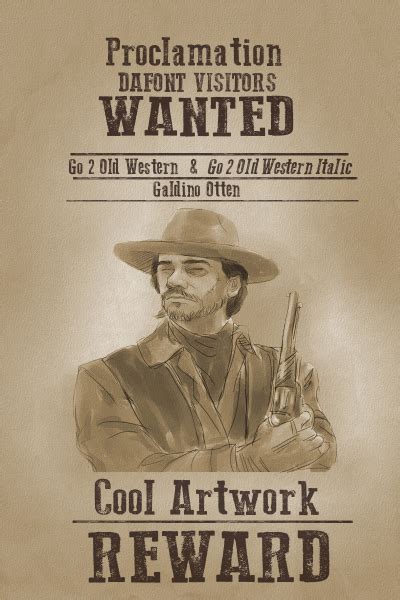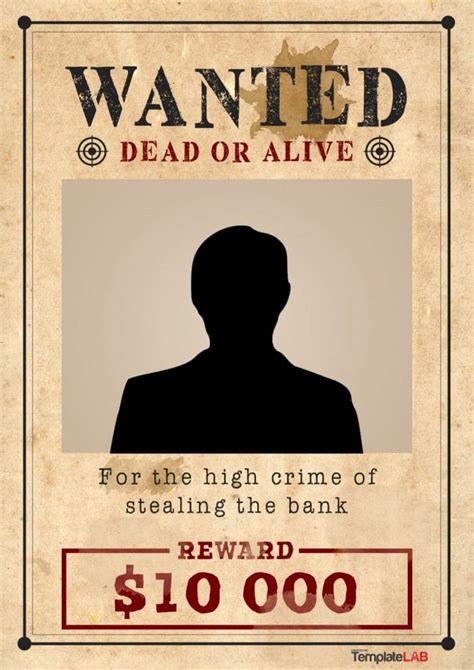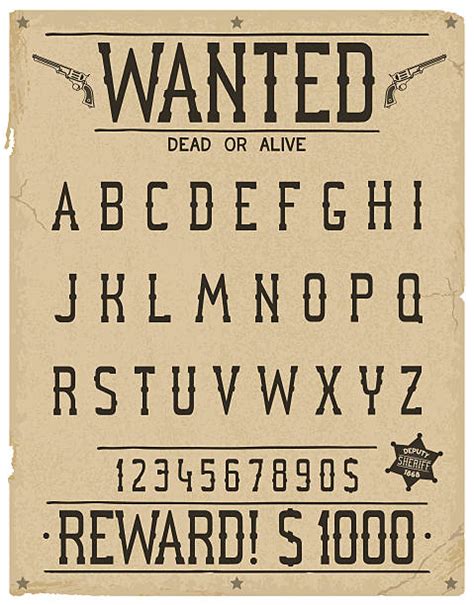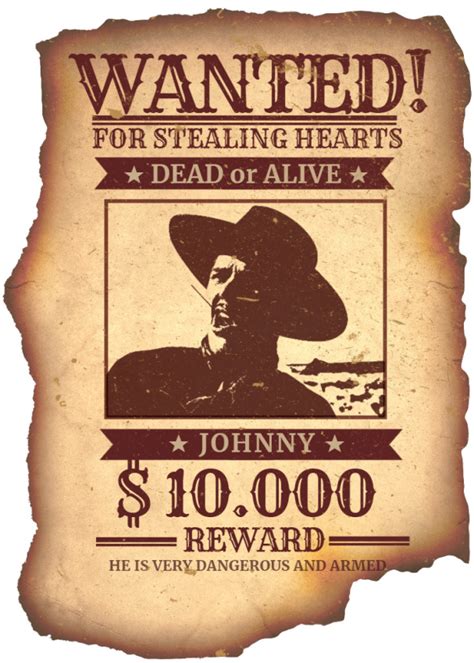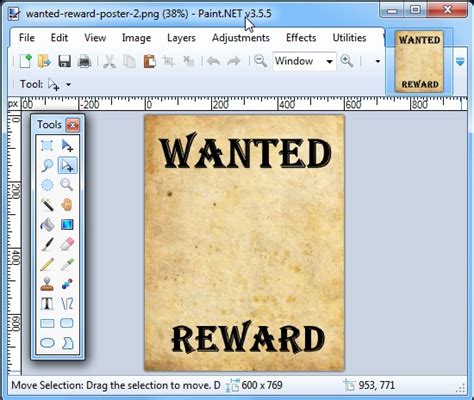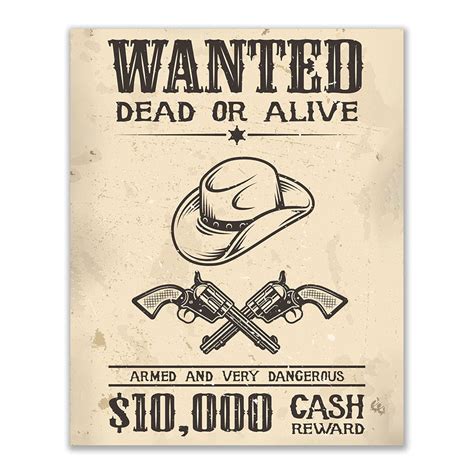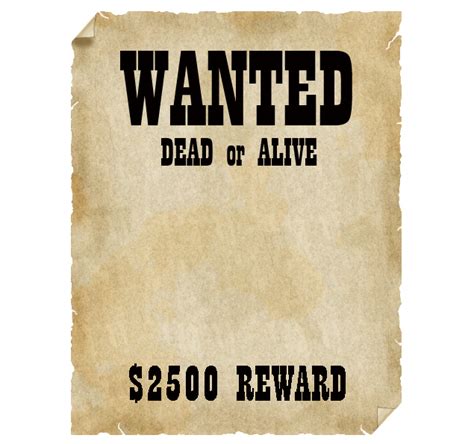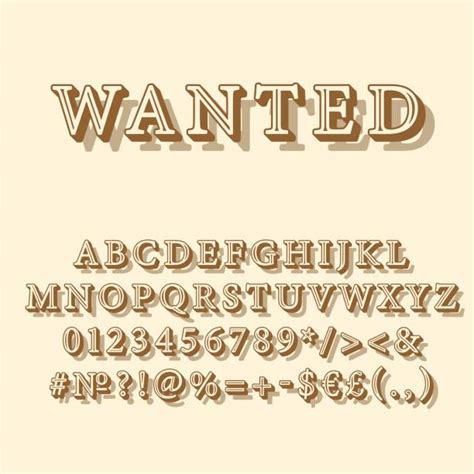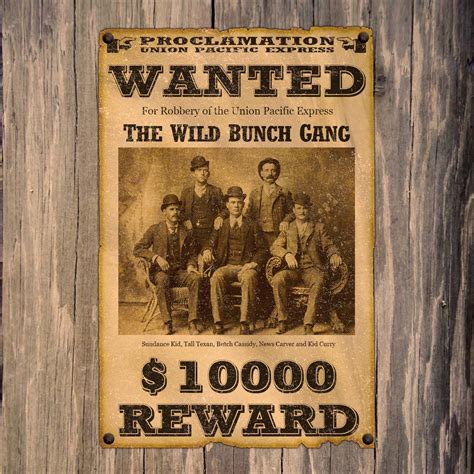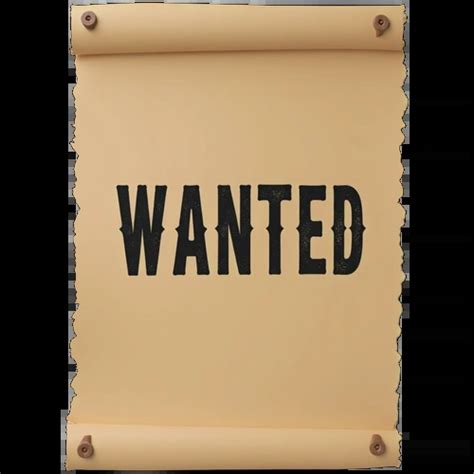
WANTED POSTER FONT
Welcome to the world of wanted poster font, a unique and eye-catching design element that has become an iconic symbol in popular culture. This font style is instantly recognizable and has been used in countless movies, TV shows, and even real-life wanted posters to create a sense of urgency and intrigue.
The wanted poster font is characterized by its bold, blocky letters that resemble the style of old-fashioned posters and signs. It often features sharp edges, straight lines, and a lack of serifs, making it stand out from traditional fonts. This distinctive look has made it a popular choice for various creative projects, from movie posters and book covers to website headers and social media graphics.
One of the key benefits of using this font is its ability to evoke a sense of nostalgia and a connection to the past. It transports viewers back to a time when wanted posters were a common way to seek information and justice. This font style can also add a touch of drama and intensity to any design, making it perfect for creating attention-grabbing headlines or emphasizing important messages.
In this article, we will explore the history and evolution of the wanted poster font, its various applications, and how it continues to be a popular choice for designers and creators. We will also discuss some of the best options available for those looking to incorporate this iconic style into their projects.